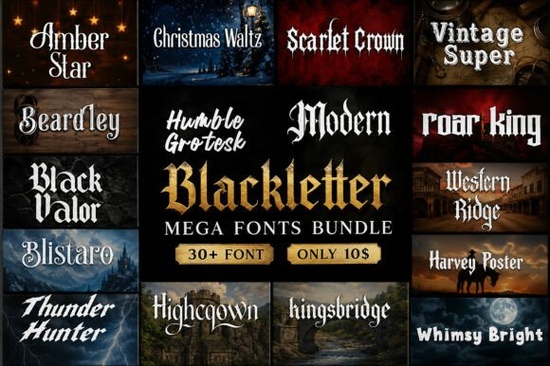
If you are looking for a reliable typeface pack that covers gothic, medieval, and western styles without hunting through dozens of separate files, the Modern Blackletter Mega Bundle Font is a straightforward solution. This collection brings together over thirty distinct typefaces into one downloadable package. You get everything from heavy decorative display lettering to sharp medieval-inspired alphabets, all designed to work cleanly across different projects. Whether you run a small print-on-demand shop, design branding for local clients, or simply enjoy DIY crafting, having a ready-to-use set of blackletter and vintage fonts saves time and keeps your visual style consistent.
Why does a single design project usually call for more than one gothic or blackletter style?
Different subjects require different typographic personalities. A tattoo concept might need thick, heavily weighted strokes, while a wedding invitation calls for refined medieval curves. This bundle separates those needs so you can pick exactly what fits your layout without compromising readability. Each typeface comes with full character sets and supports commercial licensing, which means you can apply them to merchandise, logos, or digital posts without worrying about tracking down individual usage rights. When you explore the full collection, you will notice how the spacing and stroke weights are already balanced for both web screens and physical printing.
How can these fonts be applied across different creative workflows?
Print-on-demand sellers often rely on fast turnaround times, so using a pre-packaged font library cuts down sourcing delays. The bundle works well for t-shirt graphics, poster layouts, album covers, and social media banners because the high contrast in the letterforms stands out even when scaled down. Crafters use similar styles for Cricut vinyl transfers, laser-engraved wood signs, and custom packaging labels. Small business owners frequently pair these typefaces with minimalist backgrounds to create strong logo marks or storefront signage. The key is matching the weight of the lettering to the medium you are working with. Heavy display versions hold up better on large formats, while thinner variations look cleaner on smaller tags or digital thumbnails.
Which specific typefaces stand out for common design tasks?
- Amber Star works well for bold headlines and stage branding.
- Christmas Waltz adds festive elegance to seasonal cards and wrap labels.
- Scarlet Crown suits regal themes, sports team logos, and premium packaging.
- Beardley pairs nicely with rugged outdoor gear graphics and festival posters.
- Humble Grotesk bridges classic blackletter shapes with cleaner modern proportions.
- Vintage SuperBlack Valor delivers maximum impact for concert flyers and gym branding.
- Highcrown creates sharp, symmetrical headers for book covers and menu design.
- Roar King leans toward dramatic display copy with a theatrical feel.
- Blistaro offers rounded edges that soften traditional gothic structures.
- Kingsbridge maintains strong vertical lines for corporate badges and crest layouts.
- Western Ridge captures frontier typography without leaning into cliché props.
- Harvey Poster provides vintage advertisement styling for retro campaigns.
- Thunder Hunter balances rugged textures with clean baseline alignment.
- Whimsy Bright introduces playful curvature for lifestyle brands and children’s products.